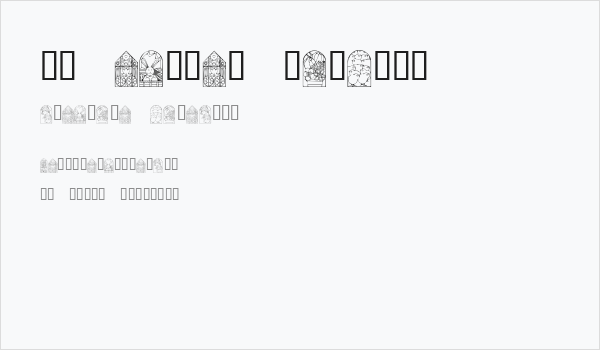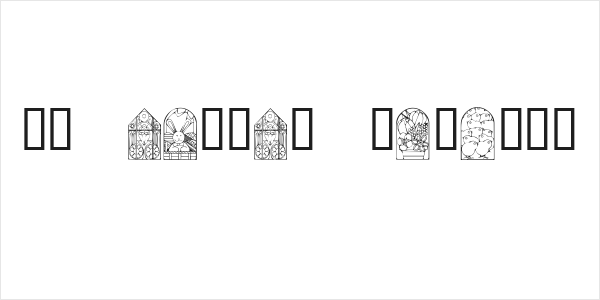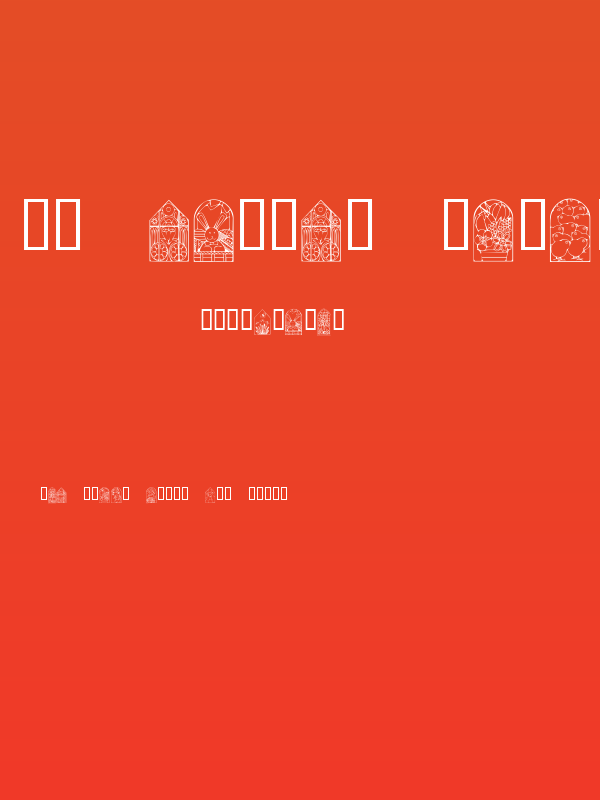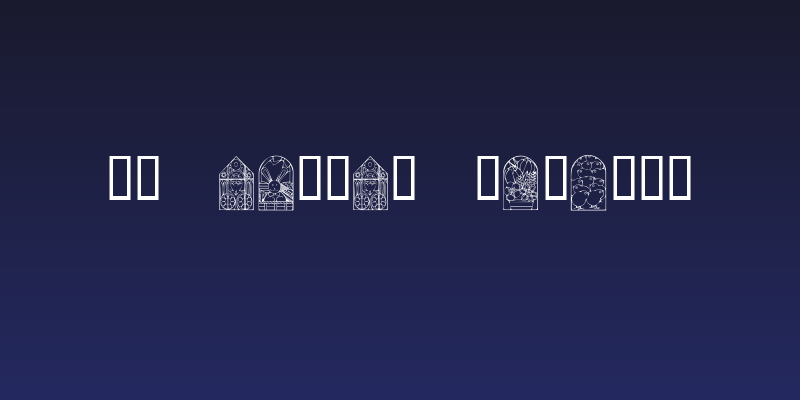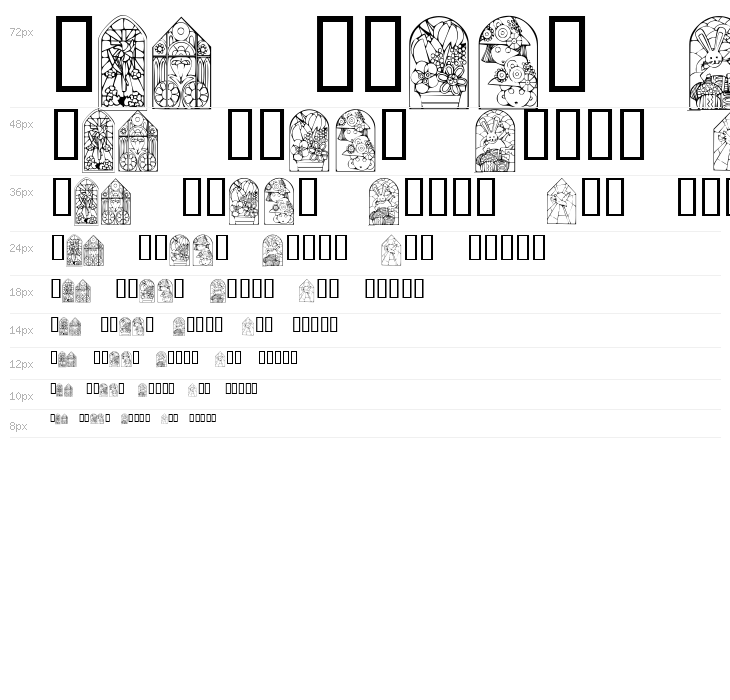
KR Easter Windows Font
KR Easter Windows Description
This decorative font features a series of intricate designs resembling stained glass windows, each containing whimsical Easter-themed illustrations. The characters are enclosed in window-like frames, each depicting scenes such as bunnies, chicks, flowers, and eggs. The style is highly detailed and ornate, capturing the essence of Easter with a playful and artistic flair. The font is more of a pictorial representation rather than traditional alphanumeric characters, making it ideal for creative and thematic projects.
| Use Case | Logos, Decorative headings, Thematic designs |
| Proposed Projects | Ideal for Easter greeting cards, holiday decorations, themed invitations, and craft projects. |